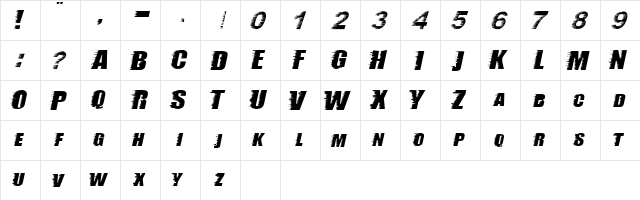
storm ExtraBold Font Preview
storm ExtraBold
storm ExtraBold Font Details
| Style | ExtraBold |
| Copyright | designed by Dieter Schumacher 98 |
Design Context for storm Typeface
storm is a composed and adaptable typeface that performs quietly and consistently across a wide range of design contexts. The heavy weight commands attention and anchors typographic hierarchies.